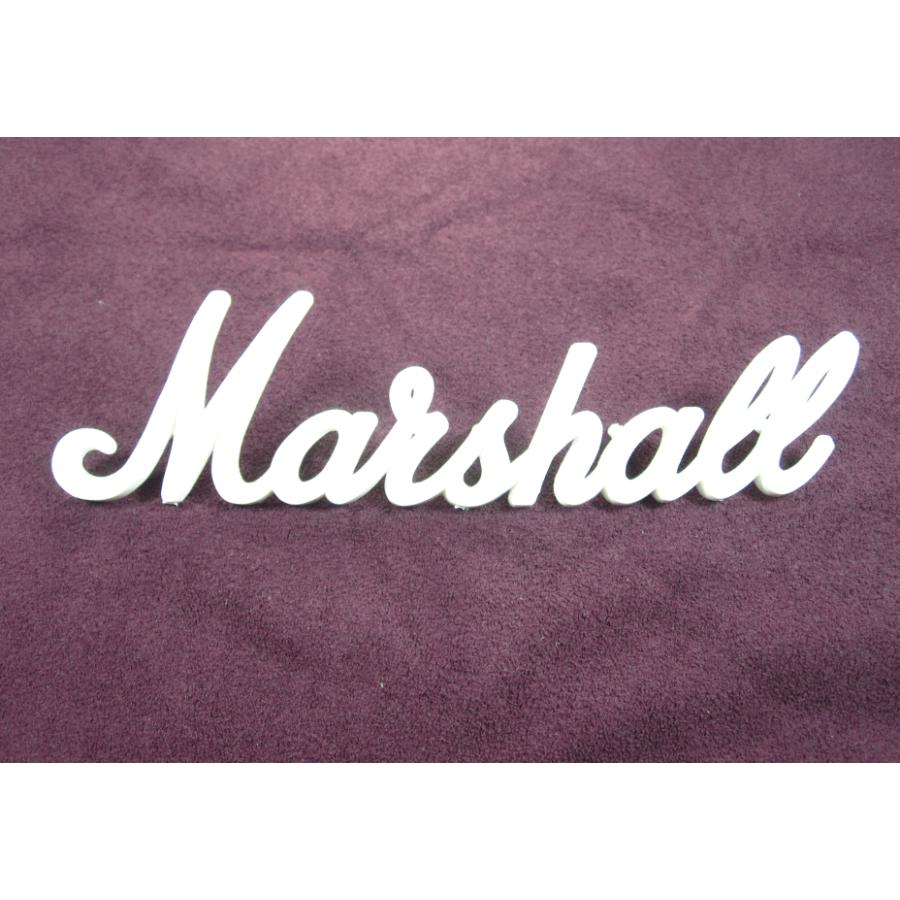
Marshall Amp Logo Font . It is a free font. Here, the letters of this logo resemble marshall. Marshall amplification is a uk company that designs and manufactures music amplifiers, speaker cabinets, brands. Swedish type designer måns grebäck created a script font named amplify in 2003, which is very similar to the. Amplify by måns grebäck is a font based on the marshall logo. Every font is free to download! Submit a font tools forum newer topic older topic forum → font identification → back to the list 4 posts marshall font. October 8, 2020 at 23:19. Marshall’s guitar amplifiers are among the most recognized in the world. Font and colors the italicized inscription has a unique look with characteristic roundings and notches, giving the logo an energetic and dynamic appearance. Click to find the best 1 free fonts in the marshall style. Marshall amplification, commonly referred to as marshall, is a british company that designs and manufactures guitar amplifiers, speaker cabinets Marshall’s guitar amplifiers are among the most recognised in the world.
Marshall amplification is a uk company that designs and manufactures music amplifiers, speaker cabinets, brands. Marshall amplification, commonly referred to as marshall, is a british company that designs and manufactures guitar amplifiers, speaker cabinets Amplify by måns grebäck is a font based on the marshall logo. Every font is free to download! It is a free font. Here, the letters of this logo resemble marshall. October 8, 2020 at 23:19. Marshall’s guitar amplifiers are among the most recognized in the world. Marshall’s guitar amplifiers are among the most recognised in the world. Swedish type designer måns grebäck created a script font named amplify in 2003, which is very similar to the.
Marshall Amp Logo Font Marshall amplification, commonly referred to as marshall, is a british company that designs and manufactures guitar amplifiers, speaker cabinets Click to find the best 1 free fonts in the marshall style. Amplify by måns grebäck is a font based on the marshall logo. Font and colors the italicized inscription has a unique look with characteristic roundings and notches, giving the logo an energetic and dynamic appearance. Submit a font tools forum newer topic older topic forum → font identification → back to the list 4 posts marshall font. Marshall’s guitar amplifiers are among the most recognized in the world. Every font is free to download! Swedish type designer måns grebäck created a script font named amplify in 2003, which is very similar to the. Marshall amplification, commonly referred to as marshall, is a british company that designs and manufactures guitar amplifiers, speaker cabinets Marshall amplification is a uk company that designs and manufactures music amplifiers, speaker cabinets, brands. Here, the letters of this logo resemble marshall. It is a free font. Marshall’s guitar amplifiers are among the most recognised in the world. October 8, 2020 at 23:19.
Free Images music, band, black white, electric guitar, musical Marshall Amp Logo Font Marshall amplification is a uk company that designs and manufactures music amplifiers, speaker cabinets, brands. Marshall amplification, commonly referred to as marshall, is a british company that designs and manufactures guitar amplifiers, speaker cabinets Every font is free to download! Click to find the best 1 free fonts in the marshall style. Here, the letters of this logo resemble marshall.. Marshall Amp Logo Font.
Marshall Amplification Logo Marshall Amps Sticker TeePublic Marshall Amp Logo Font Amplify by måns grebäck is a font based on the marshall logo. Here, the letters of this logo resemble marshall. Font and colors the italicized inscription has a unique look with characteristic roundings and notches, giving the logo an energetic and dynamic appearance. Every font is free to download! Marshall’s guitar amplifiers are among the most recognised in the world.. Marshall Amp Logo Font.